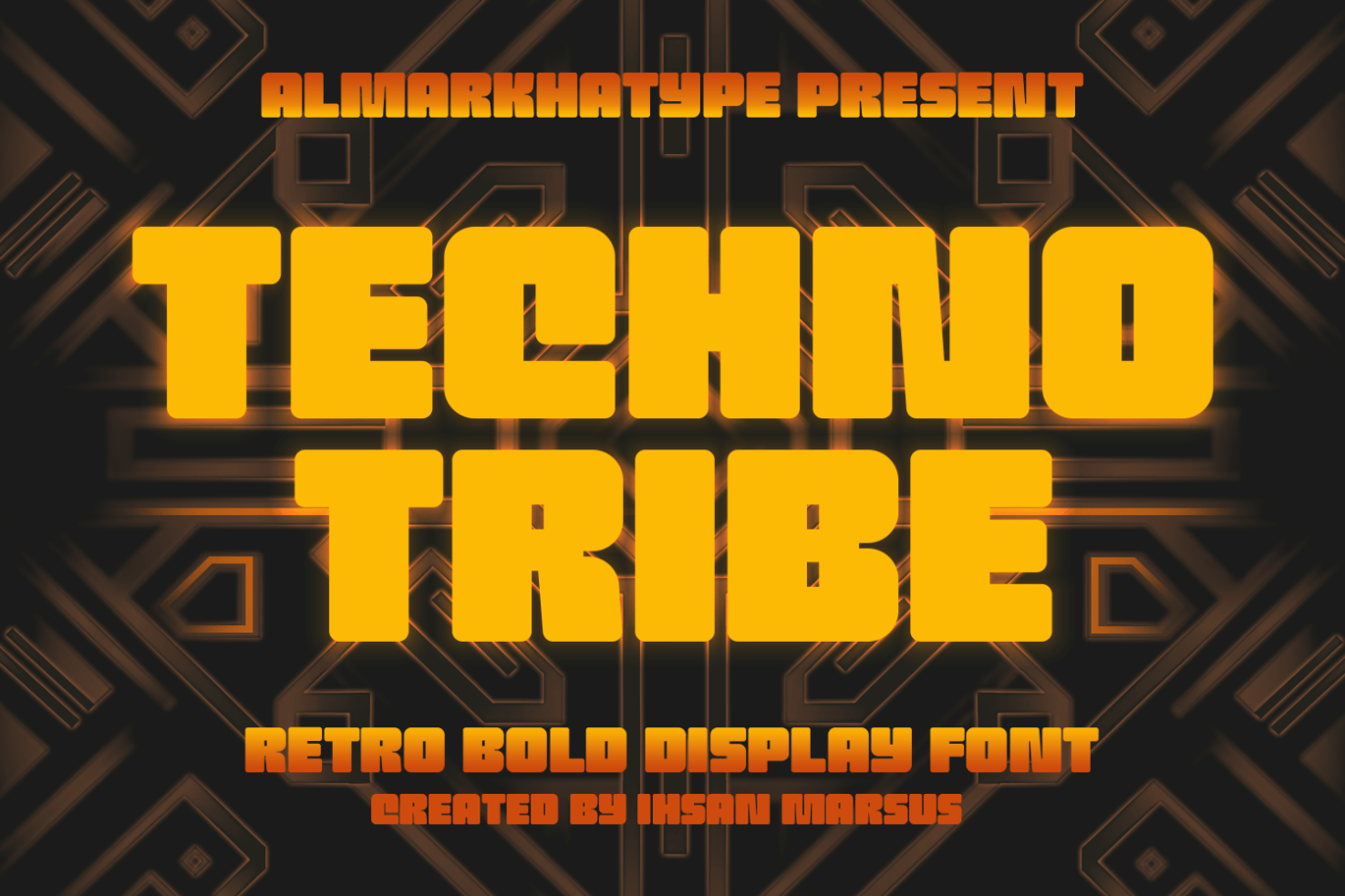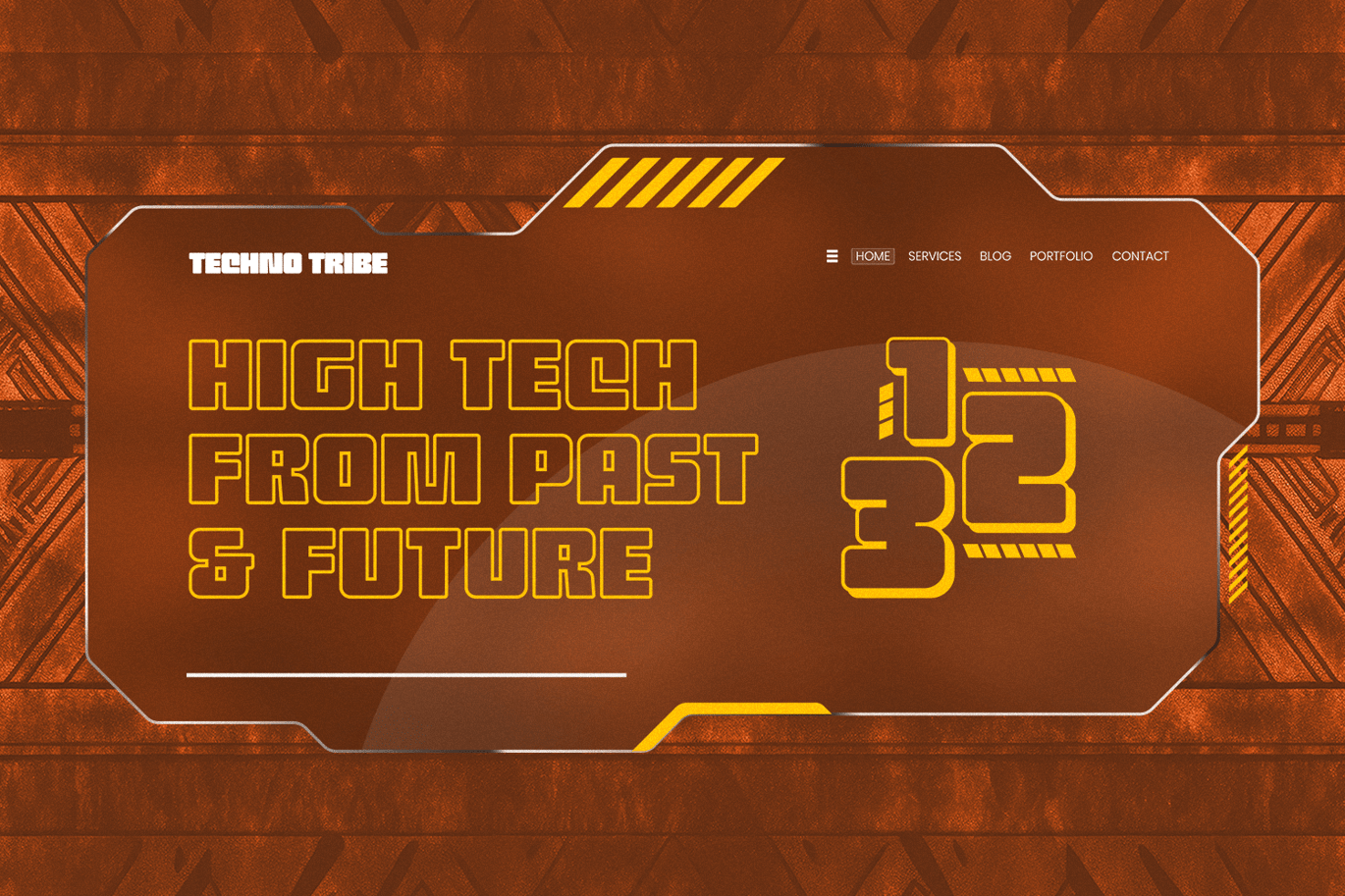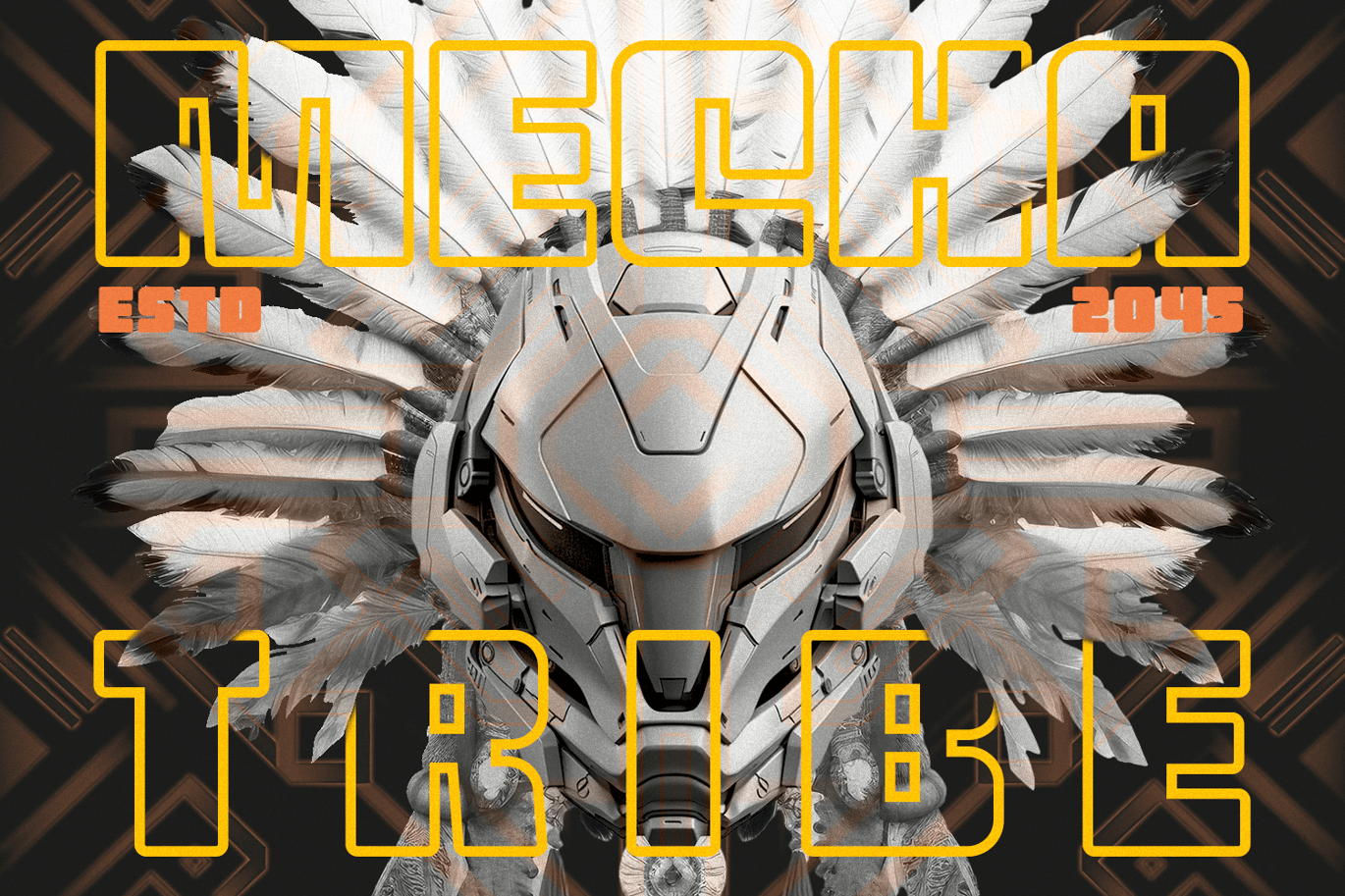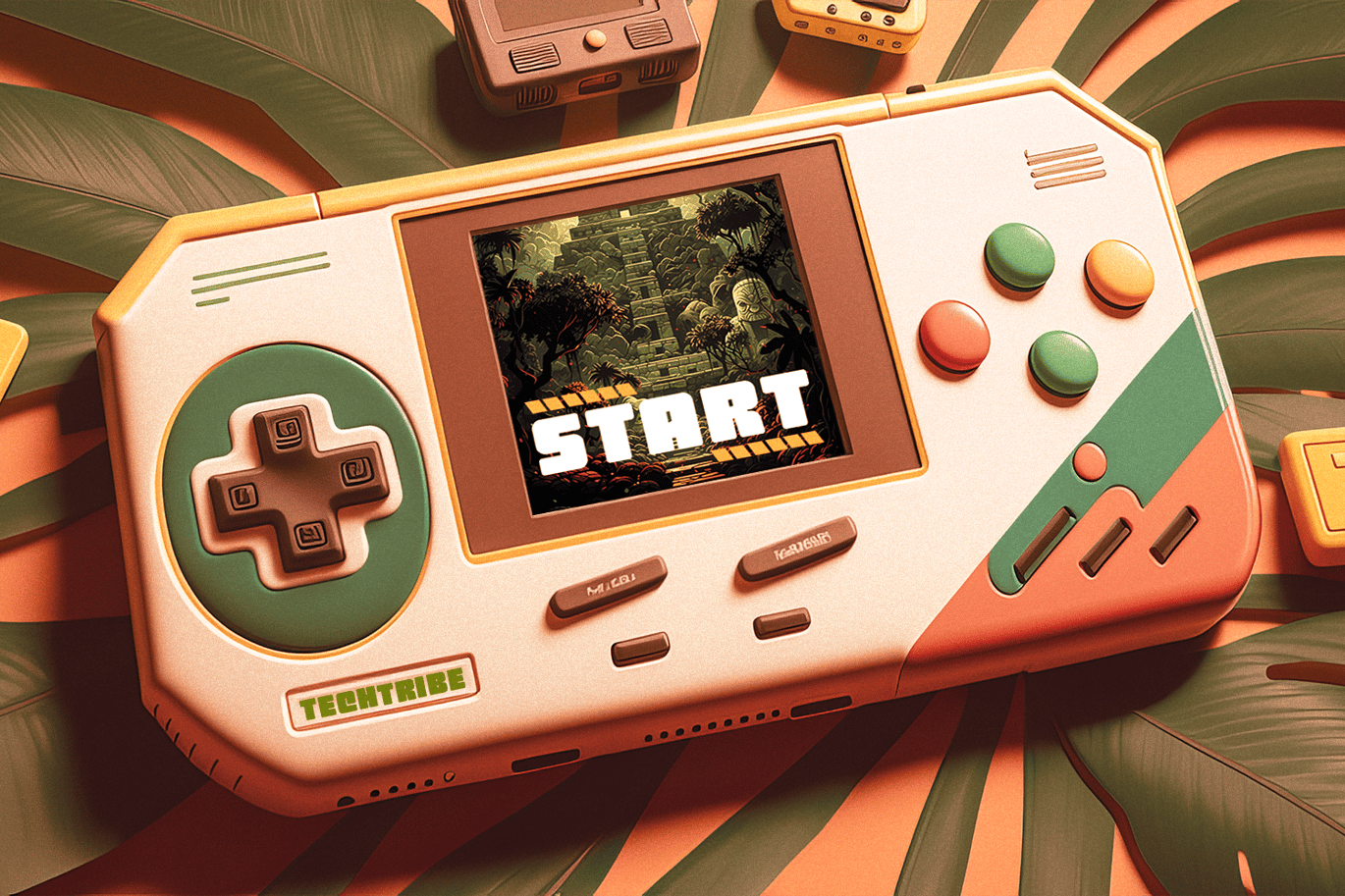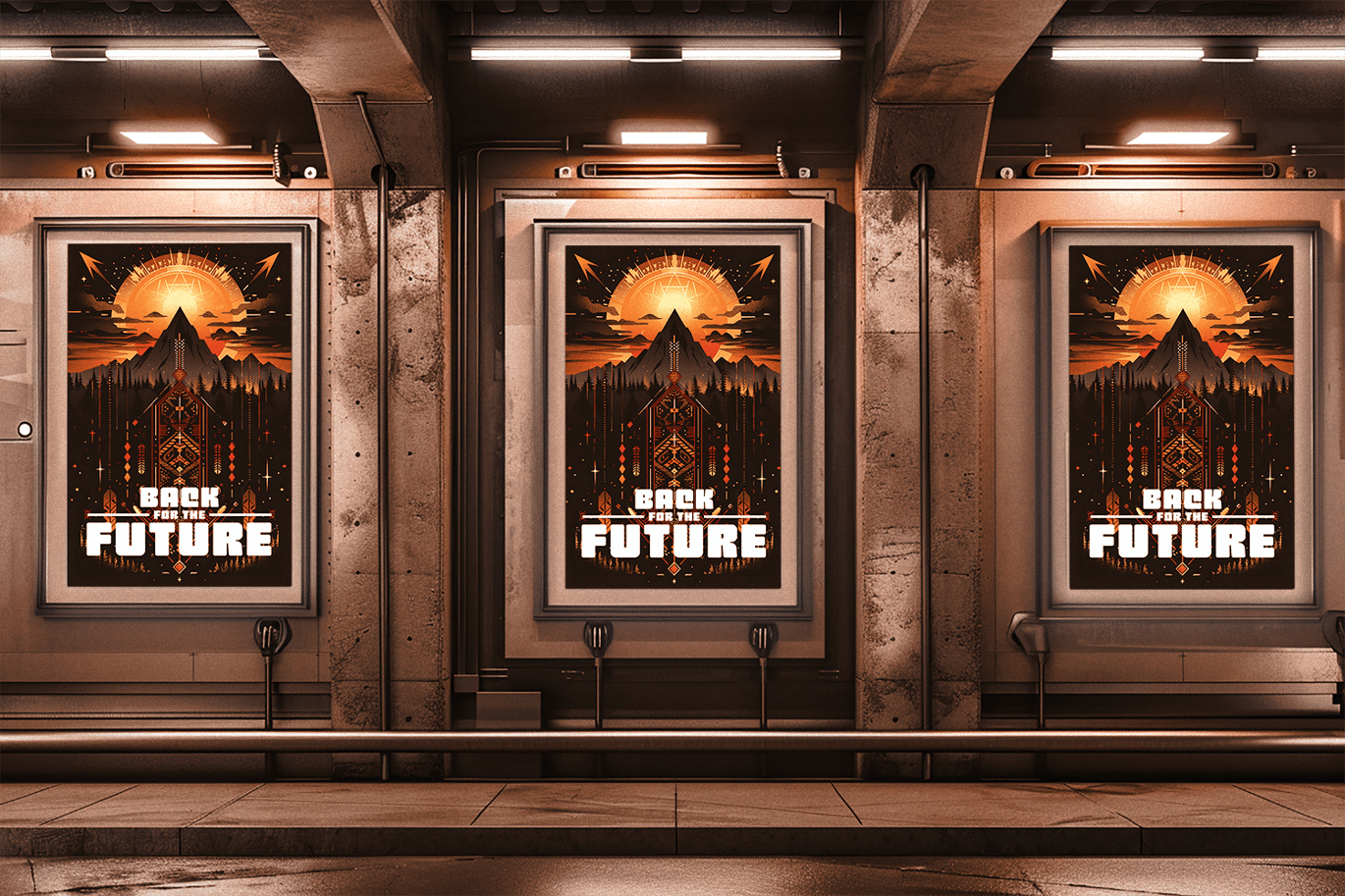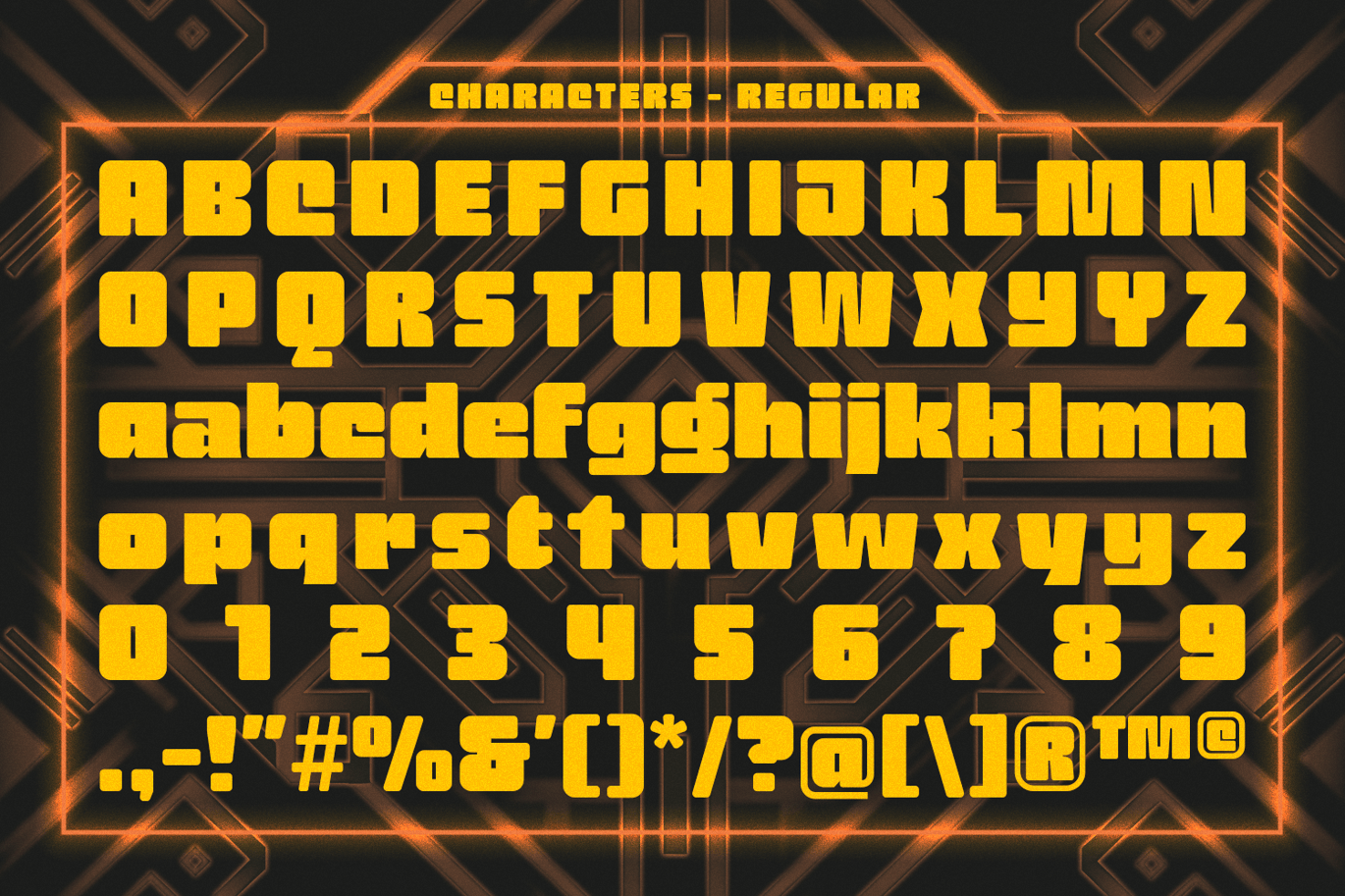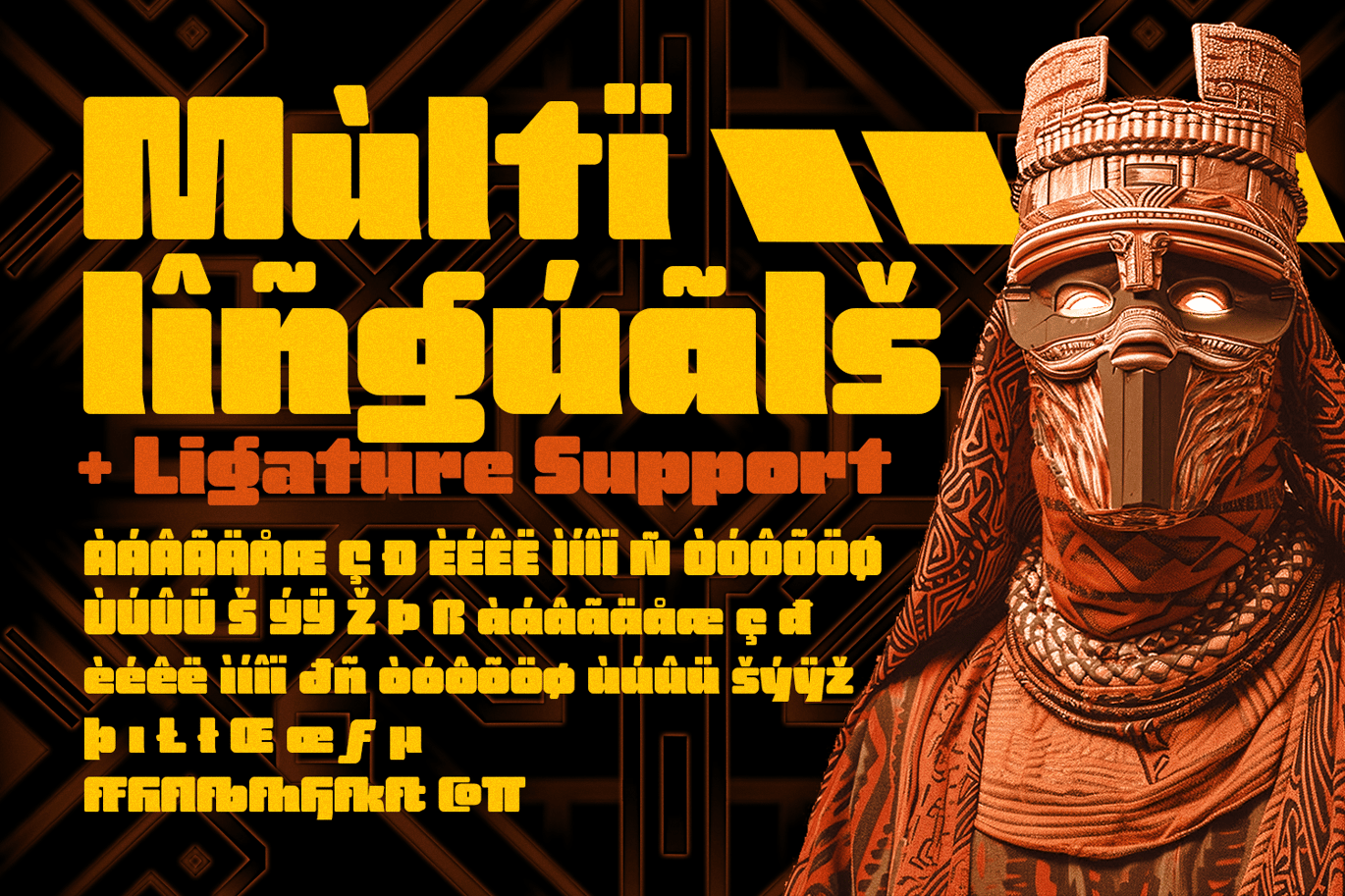
Techno Tribe – Retro Game Font
Introducing Techno Tribe, a bold display typeface offering in 3 styles regular and line. Inspired by technology, futuristic aesthetics, tribal motifs, and retro games, it embodies boldness.
Despite its unique style, Techno Tribe is versatile and suitable for various genres. Crafted for attention-grabbing headlines, it ensures your designs demand attention. Whether for branding, events, logos, packaging, games, or posters, Techno Tribe elevates projects. Experience its impactful presence—we’re confident you’ll be captivated.
- Ligatures glyphs
- Alternate glyphs
- International Accent